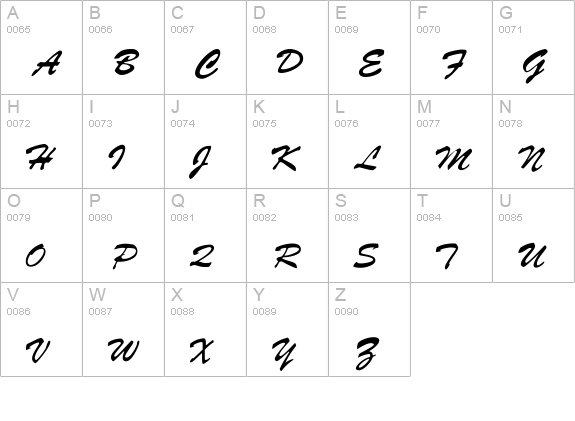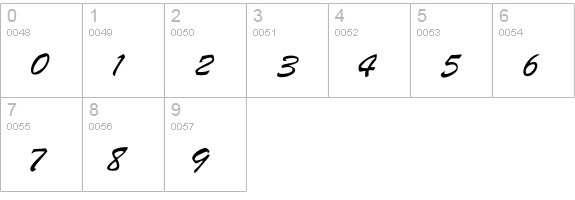
RSStyle Font Details
Introducing RSStyle font, a versatile and modern typeface that effortlessly combines elegance with a touch of sophistication. With its clean lines and sleek design, RSStyle is perfect for a wide range of projects, from branding to editorial design. This font features a unique blend of classic and contemporary elements, making it suitable for both professional and creative applications. What sets RSStyle apart is its seamless readability and impeccable letterforms, which ensure a smooth reading experience across various platforms. Whether you're designing a logo, poster, or website, RSStyle will elevate your project with its timeless appeal. Best of all, RSStyle is available for free download exclusively at FontsMarket.com. Don't miss out on this opportunity to enhance your design work with a high-quality and stylish font that will make a lasting impression. Download RSStyle today and elevate your typography game to new heights!